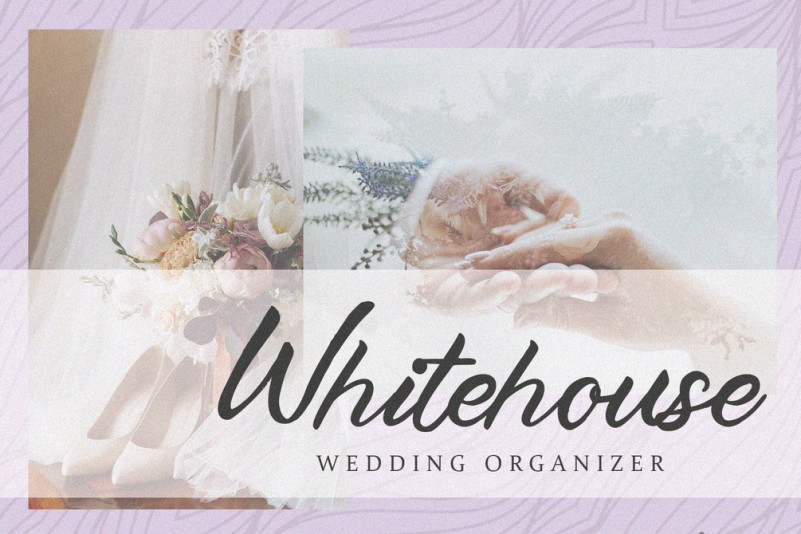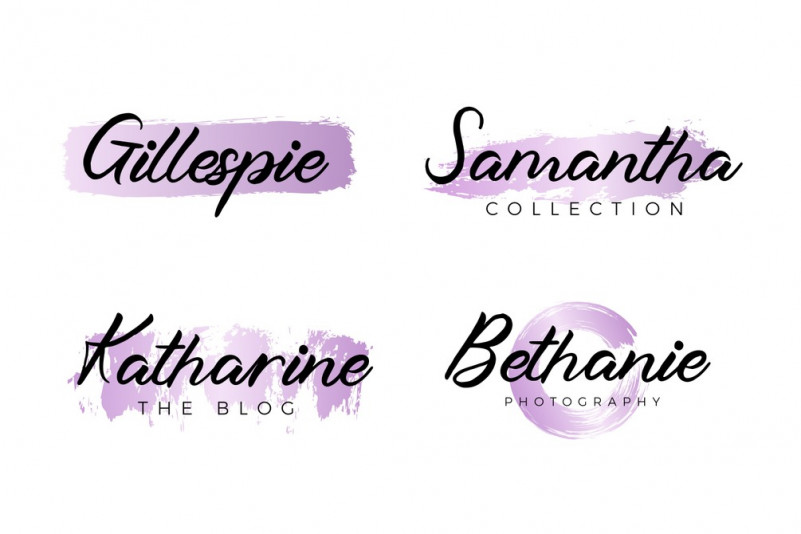
Stright Brush Typeface
Stright Brush Font
Stright Brush is a lovely handwritten font, featuring a natural flow. Not too thin and not too thick, balanced and varied, this font was designed to enhance the beauty of your projects.